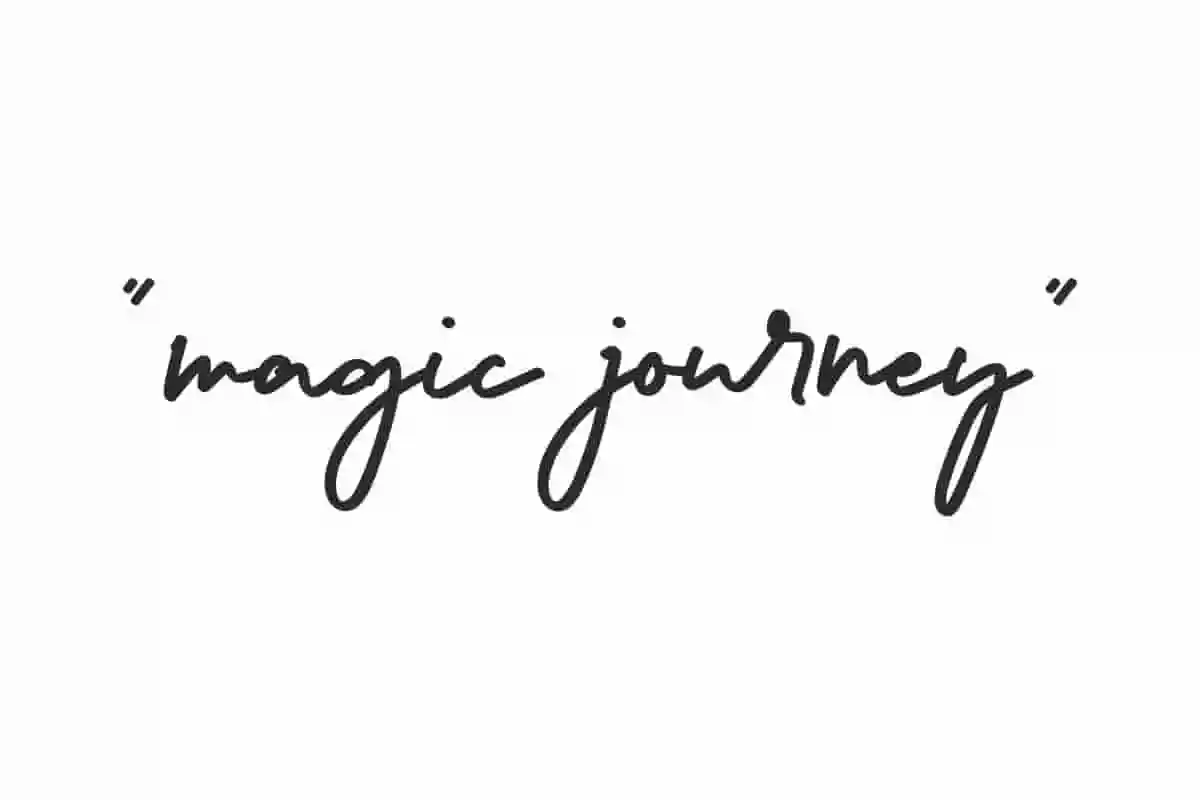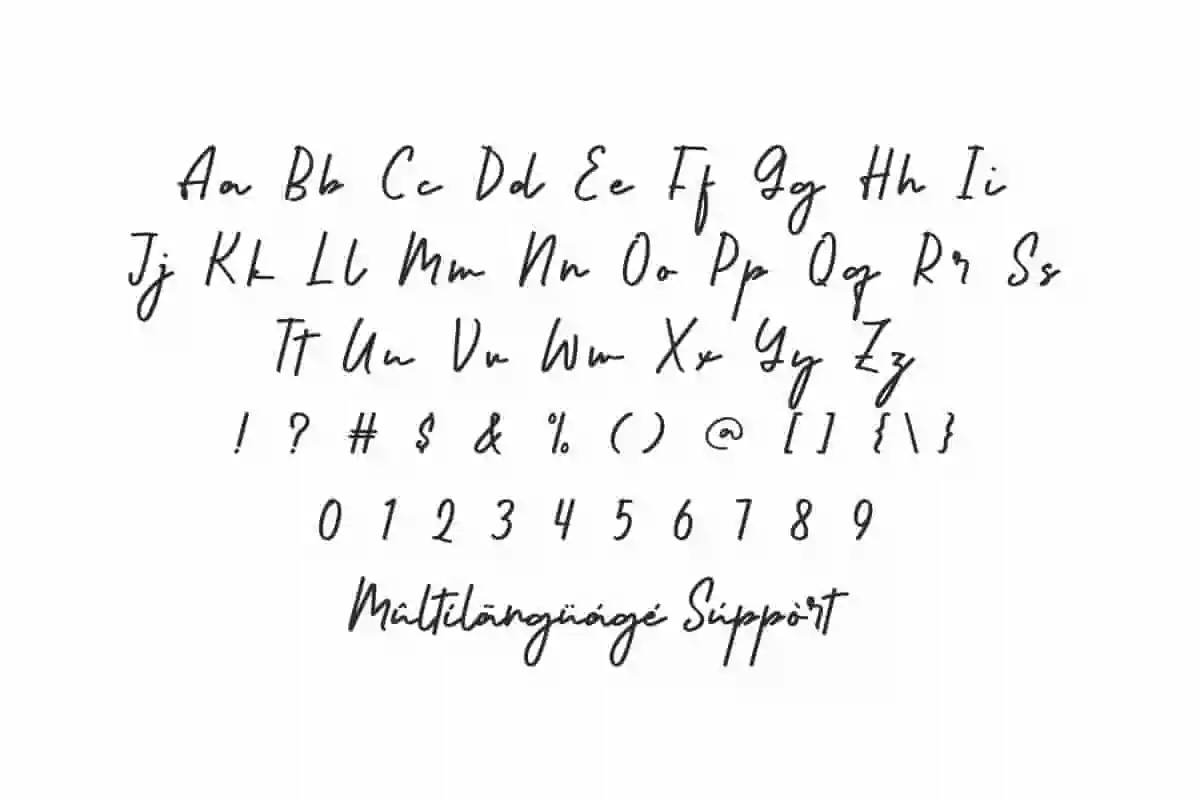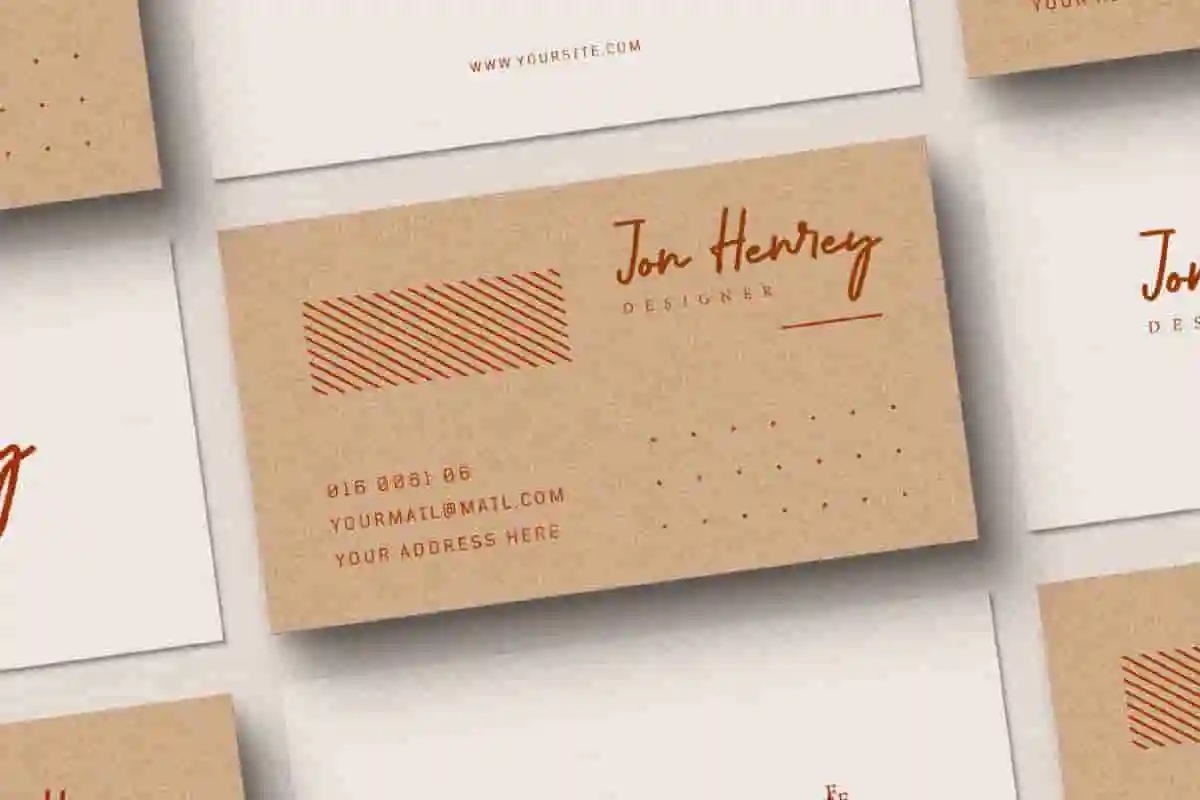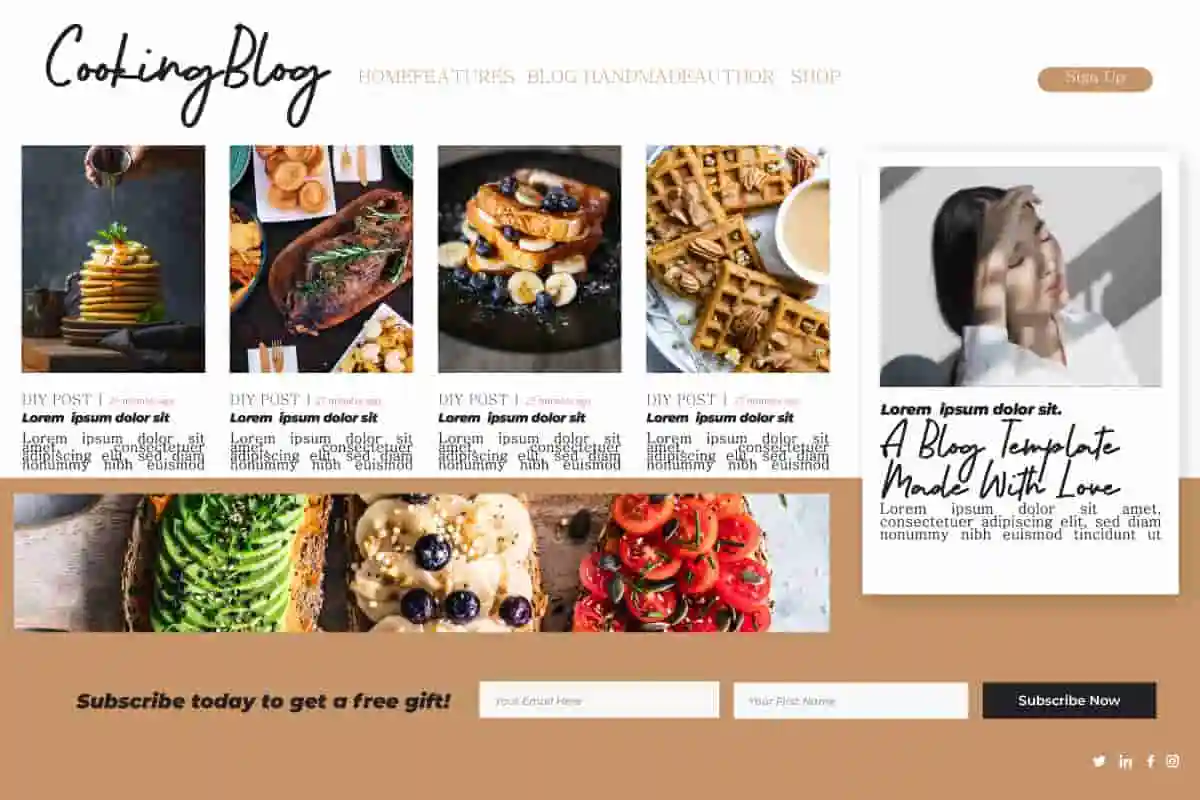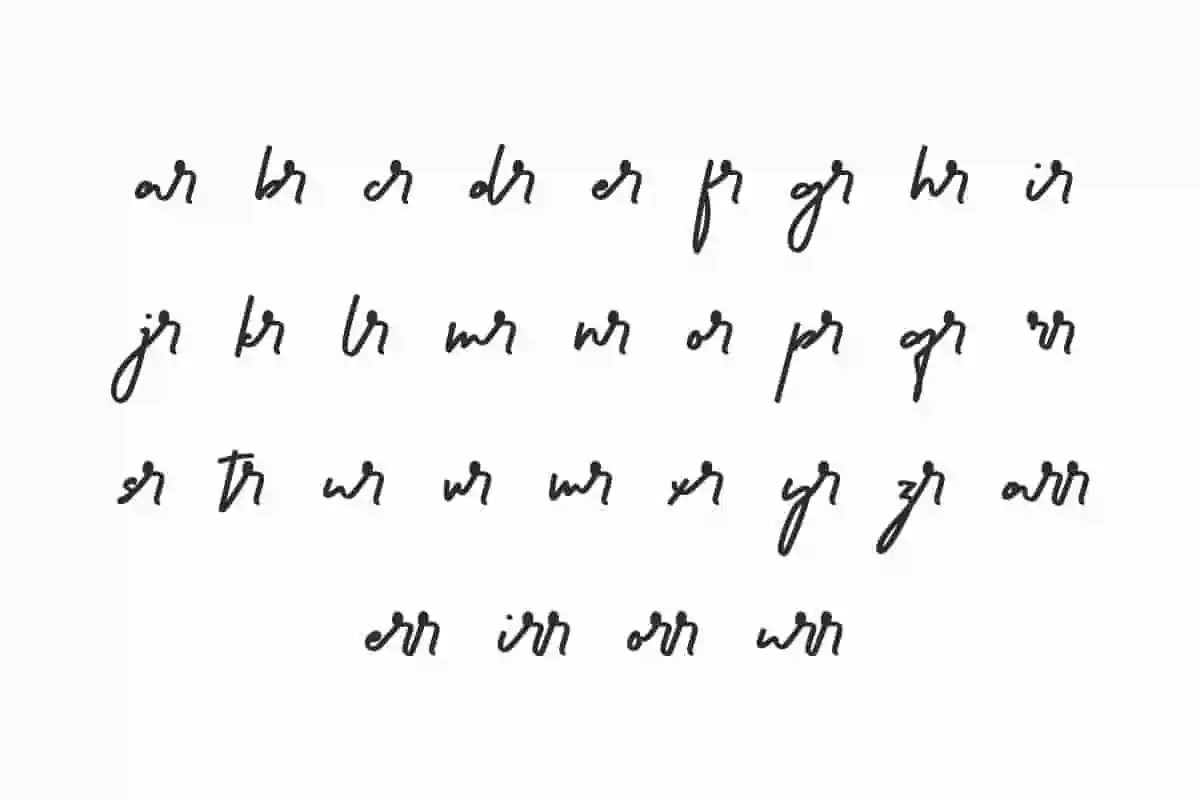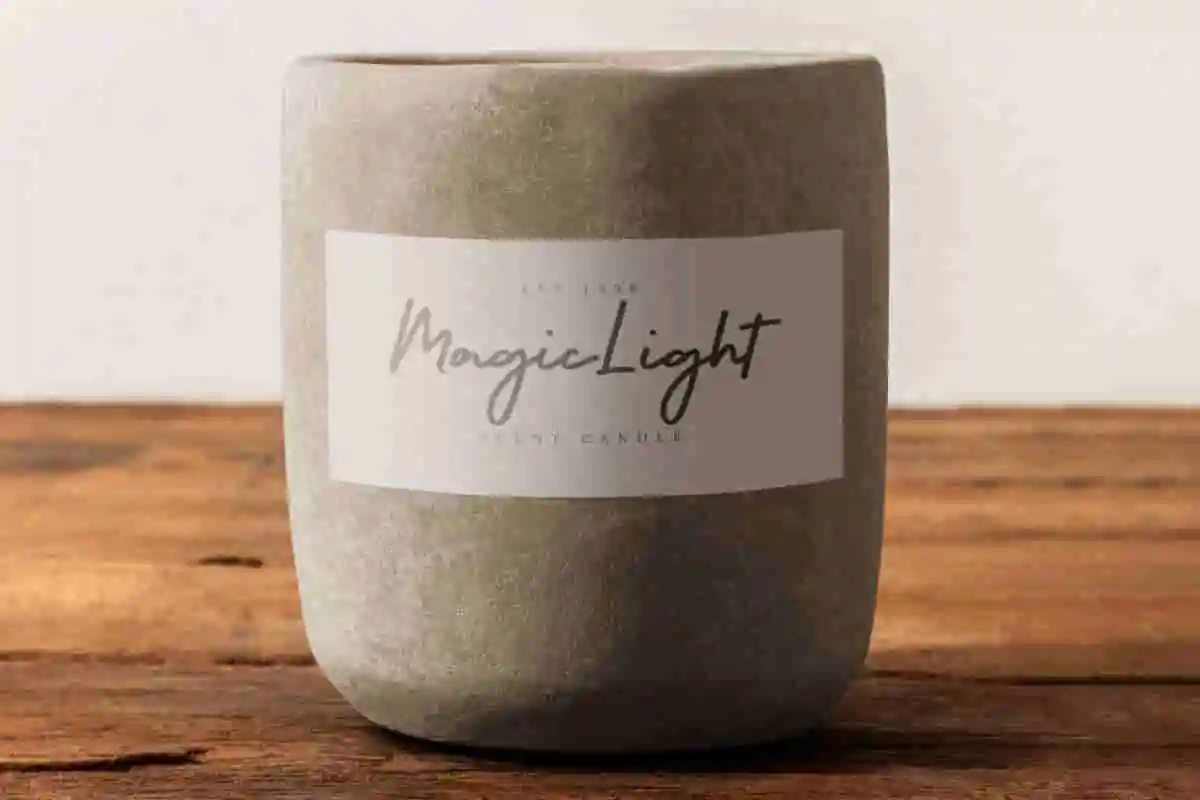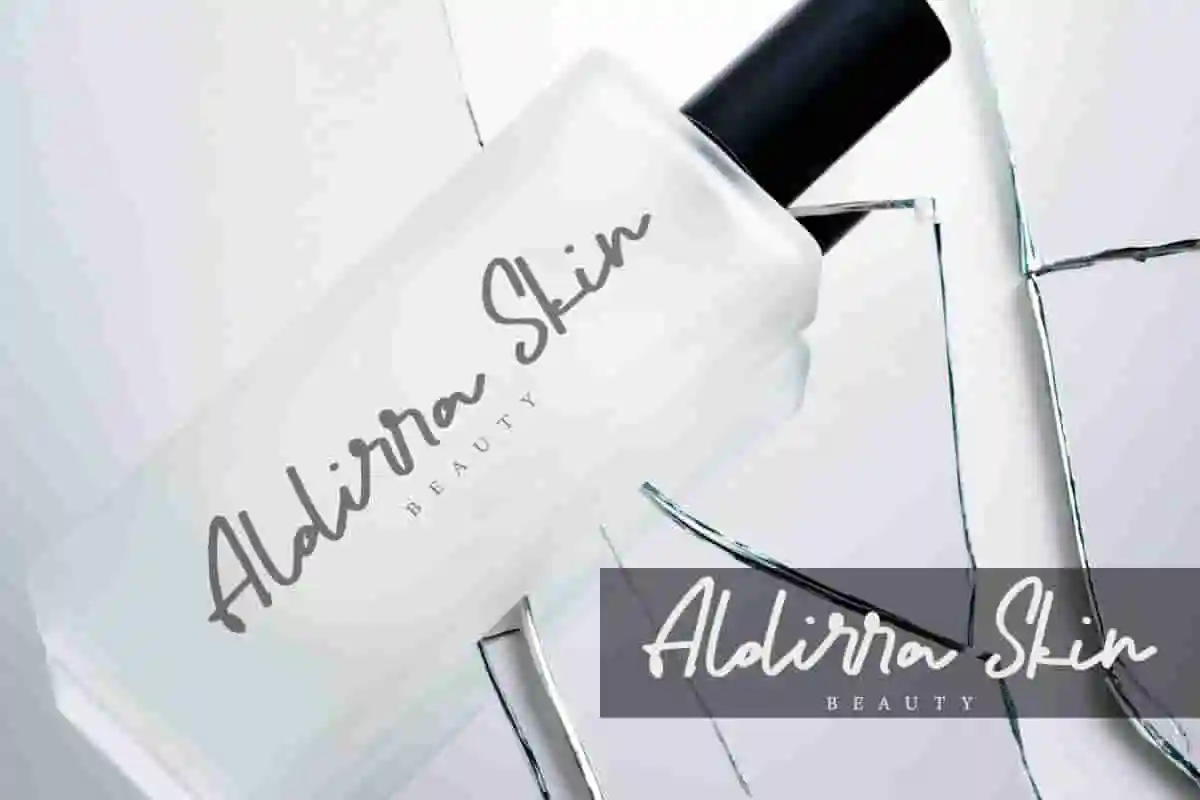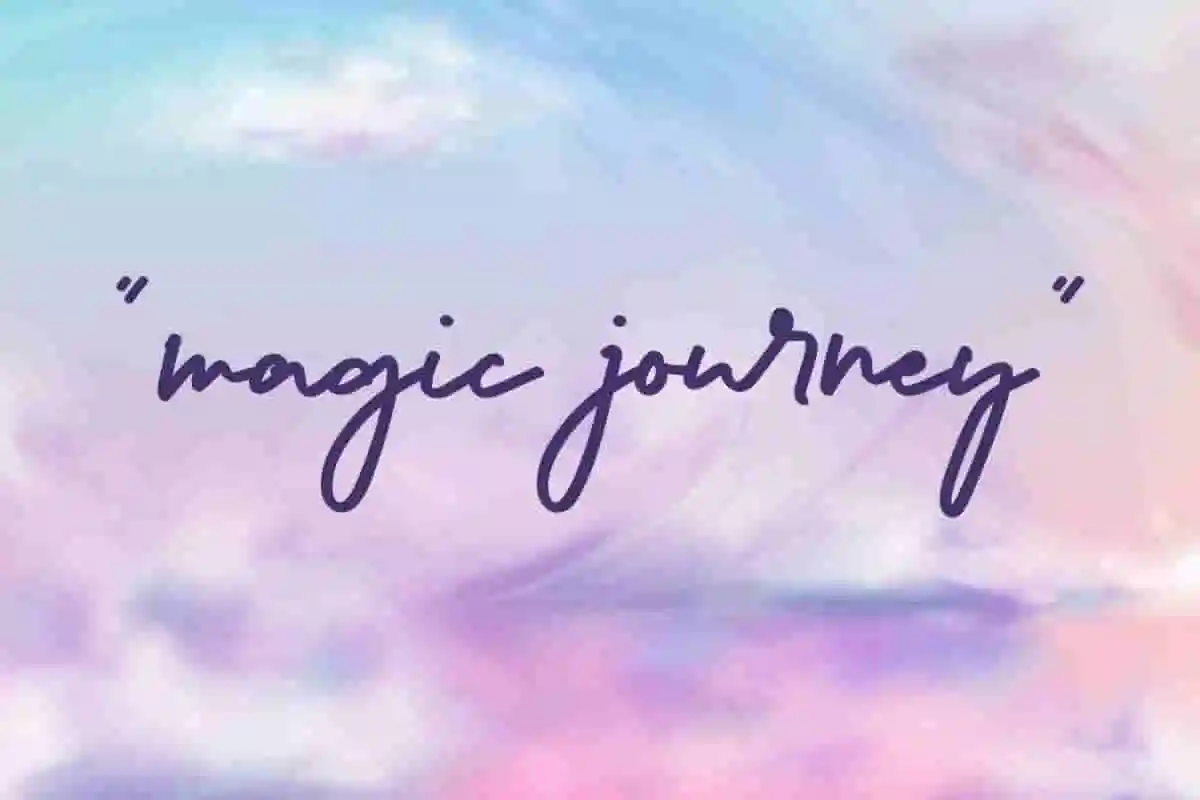
Magic Journey Font is an attractive stylish handwritten font with a modern look. The right choice for brand identity designs and other things.
Magic Journey Font is a delicate modern and stylish handwriting font with a simple hand scripted style. It will bring beauty to your business, such as architect, bakery, cafe, cooking class, design interior, event organizer, fashion, florist, furniture, graphic design, handicraft, photography, printing, publishing, real estate, restaurant, retail, skincare, spa salon, writer, and many more.
Magic Journey Font includes complete sets for Uppercase and Lowercase Basic Characters, Number, Punctuation, and Symbol. Neat typography will always bring a comfortable atmosphere to look at in your designs, such as apps, blogs, brand image, brochure, business card, cover, header, invitation, logos, mockup design, packaging design, poster, product label, quotes, screen print, signage, sticker, title, website, etc.